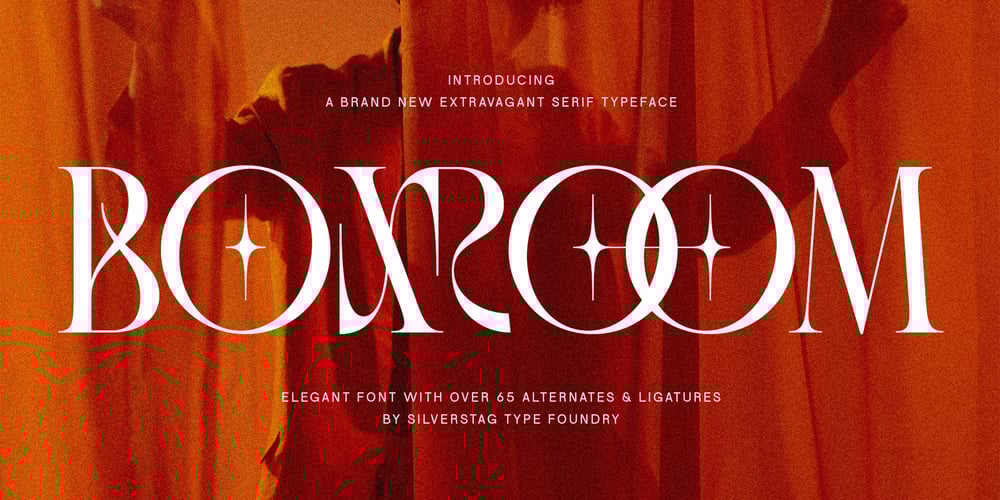
SLTF Boxroom Font Family was designed by SilverStag and published by SilverStag. SLTF Boxroom contains 1 styles and family package options. Introducing BOXROOM, a typeface that dares to be different. This isn’t your average serif; it’s a bold, expressive statement piece that’s ready to elevate your designs with its unique blend of vintage elegance and modern flair.Imagine those sharp, captivating serifs, like a perfectly tailored suit with a rebellious edge. And those cool little decorations on letters like O, Q, E, and F? They’re like hidden gems waiting to be discovered, adding a touch of surprise and delight to every word.But BOXROOM is more than just a pretty face. With over 65 ligatures and alternate letters, it’s incredibly versatile, allowing you to create truly unique and captivating typography. And with support for over 400 languages, BOXROOM speaks to a global audience, making it perfect for any project that demands a touch of sophistication and a whole lot of personality.Here’s what sets BOXROOM apart: Expressive and Chic: BOXROOM is designed to make a statement. Its extended serifs and unique details create a look that’s both elegant and edgy. Versatile and Adaptable: With a wealth of ligatures and alternates, BOXROOM can adapt to any design style, from classic to contemporary. Globally Inclusive: With support for over 400 languages, BOXROOM speaks to a diverse audience, breaking down communication barriers. Meticulously Crafted: Every detail of BOXROOM has been carefully considered to ensure readability, visual appeal, and a truly unique typographic experience. Where BOXROOM shines: Branding and Logos: Create impactful and memorable brand identities that stand out from the crowd. Editorial Design: Elevate your magazine layouts, headlines, and article titles with a touch of sophistication. Packaging and Advertising: Capture attention with eye-catching designs that demand a second look. Website Design: Give your website a touch of personality and elegance that will captivate your visitors. BOXROOM is more than just a font; it’s a tool for self-expression. It’s an invitation to break the mold and create something truly unique. So, go ahead, unleash your creativity, and let BOXROOM transform your designs into works of art.Happy creating everyone!